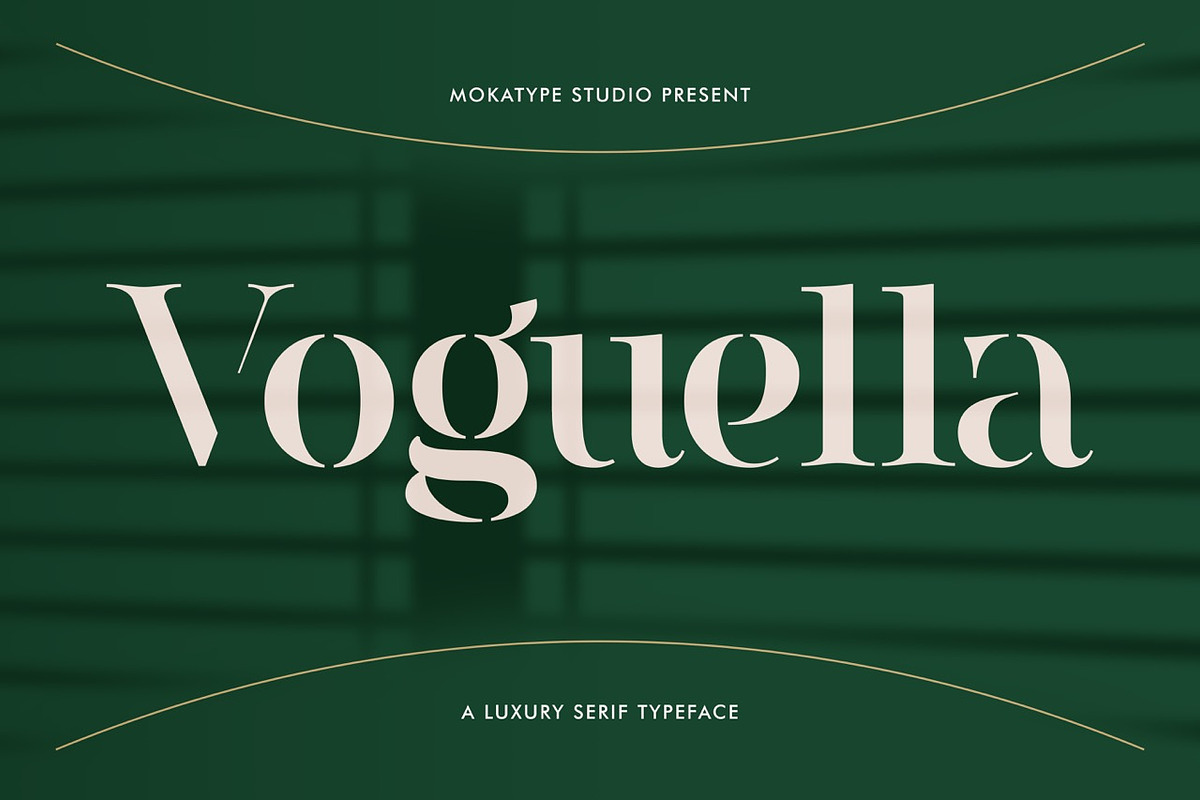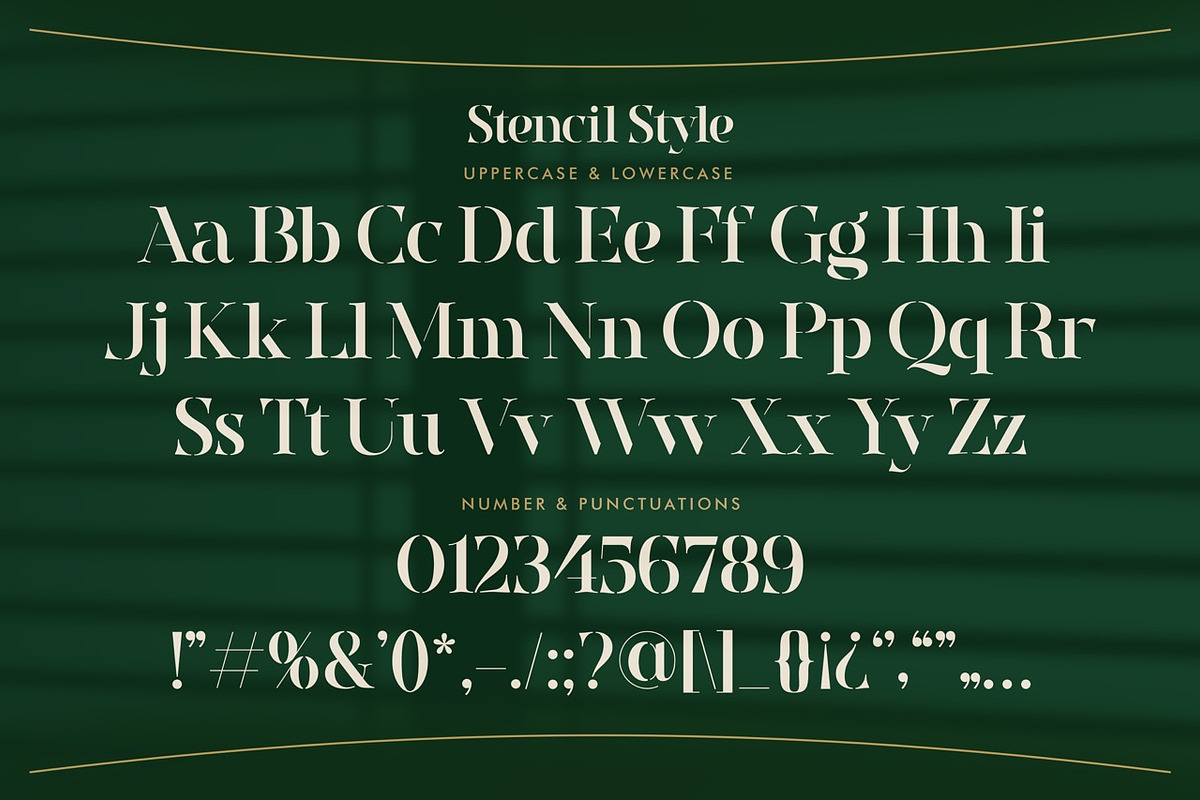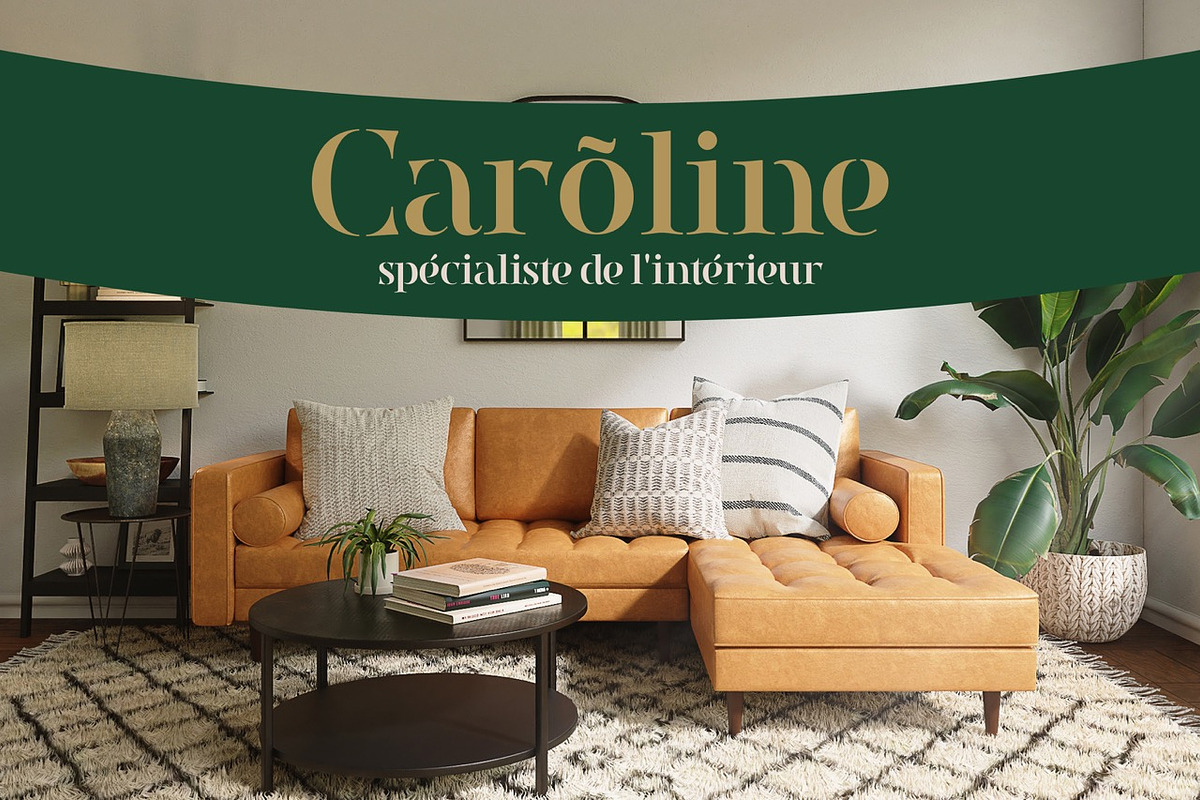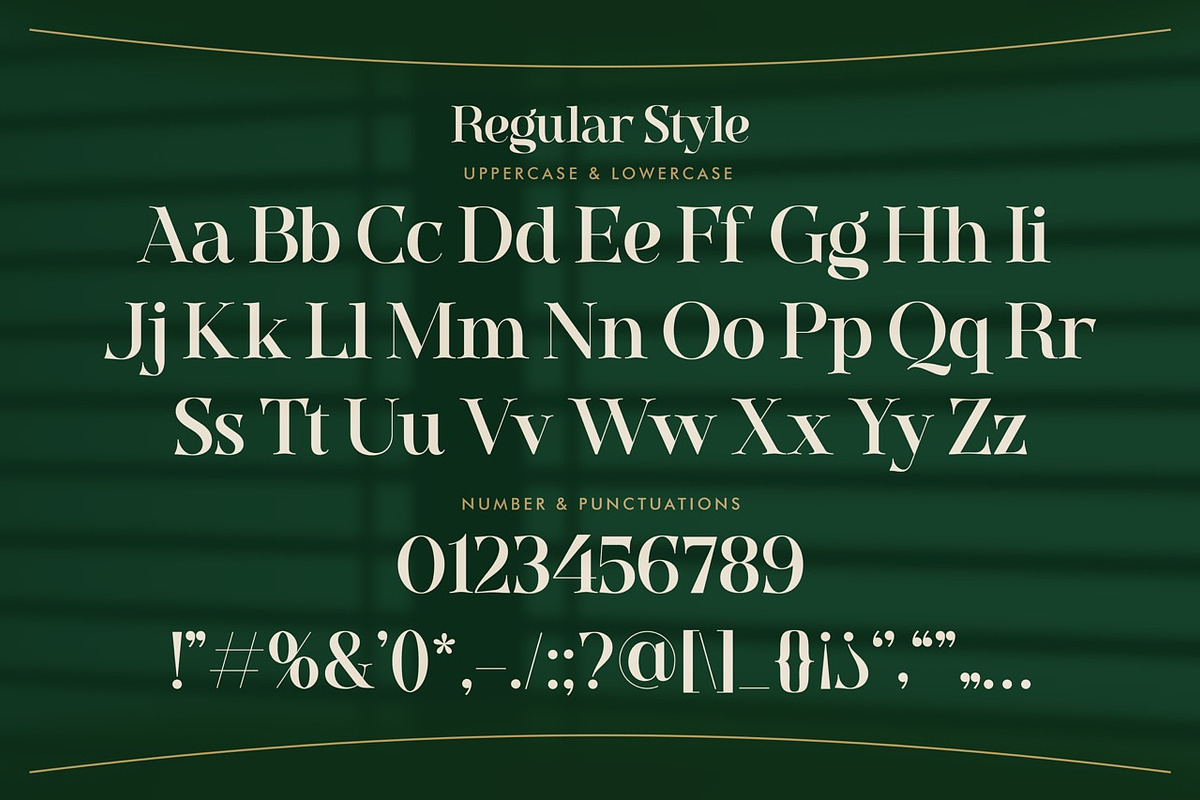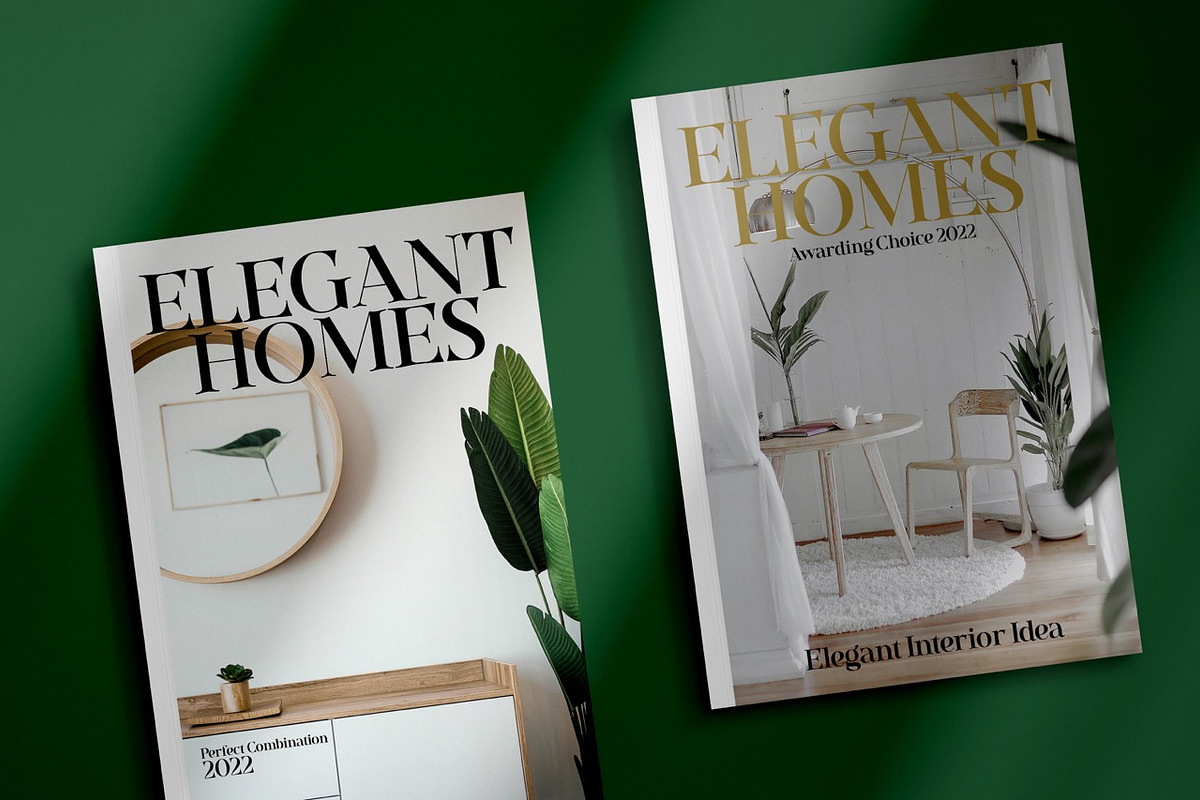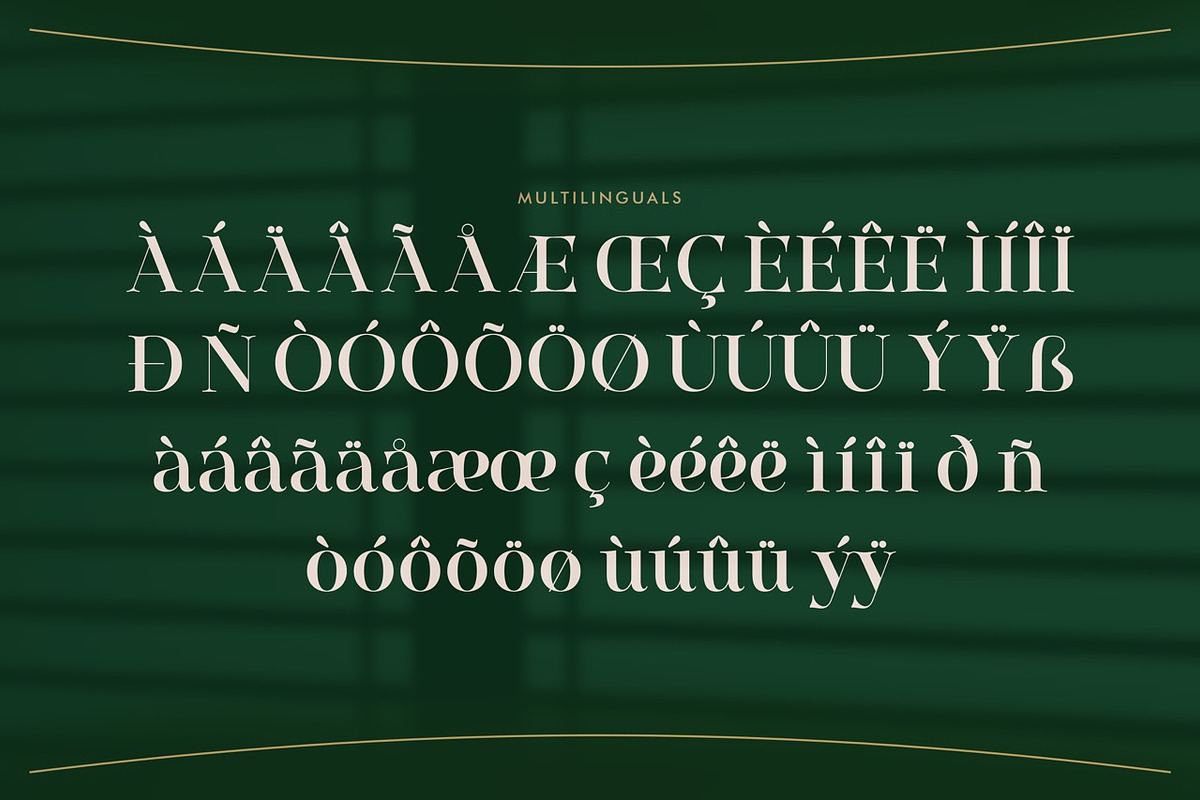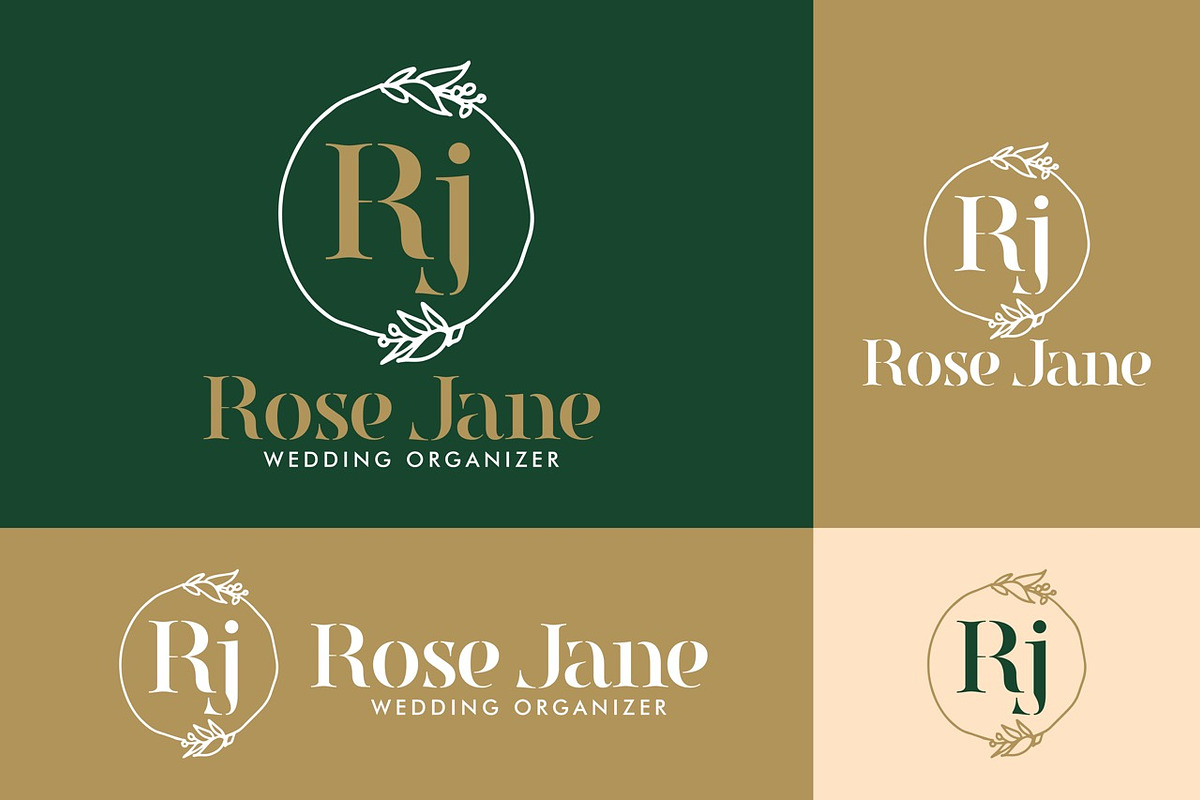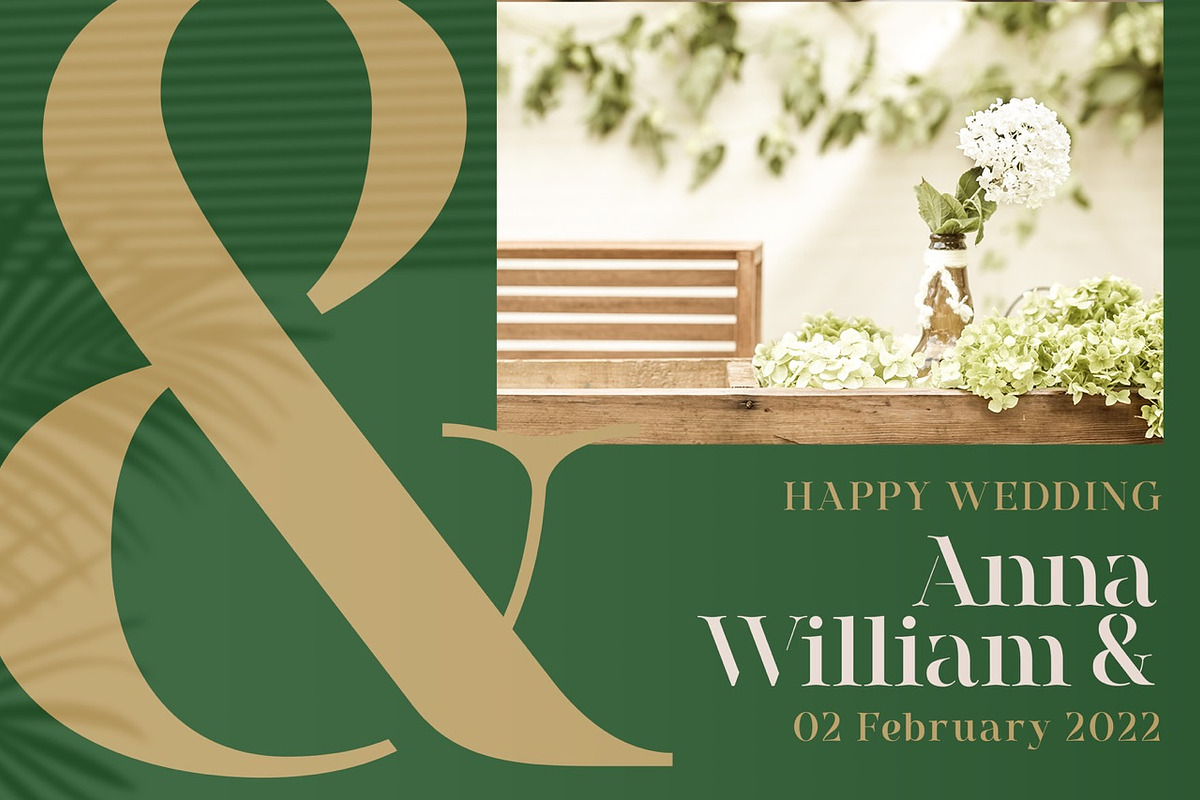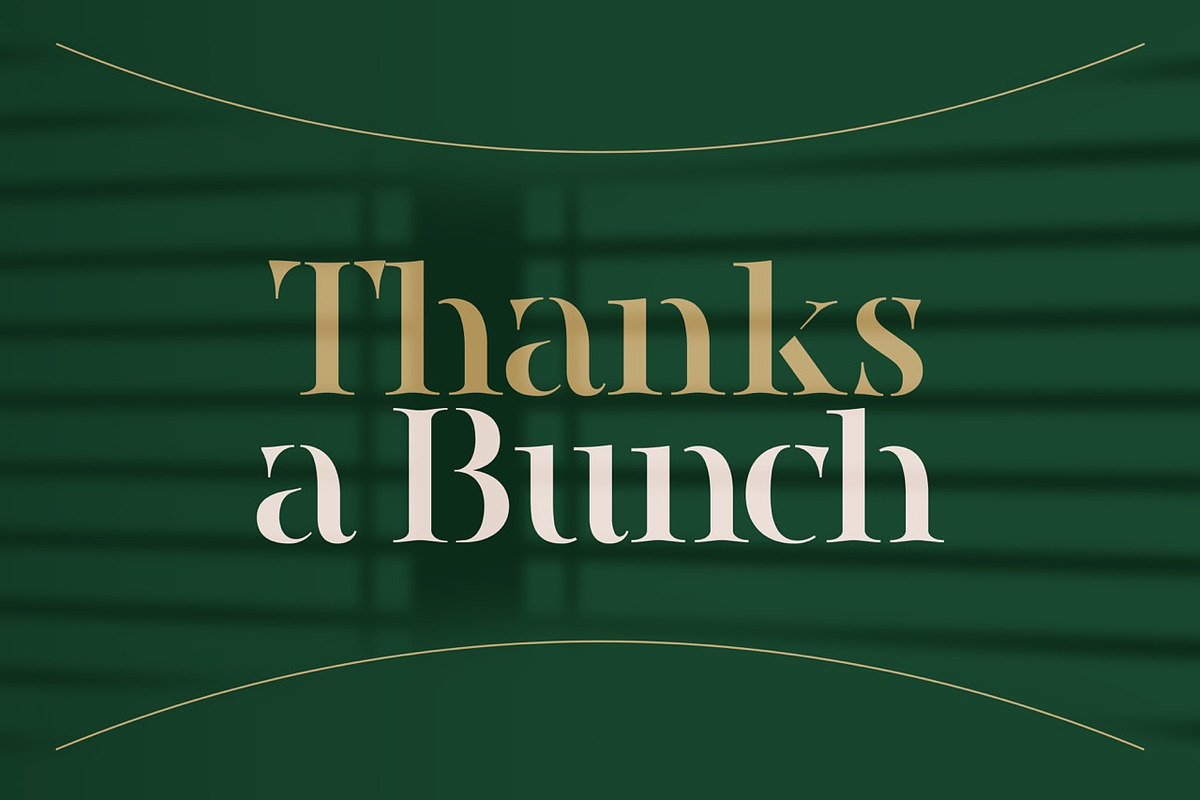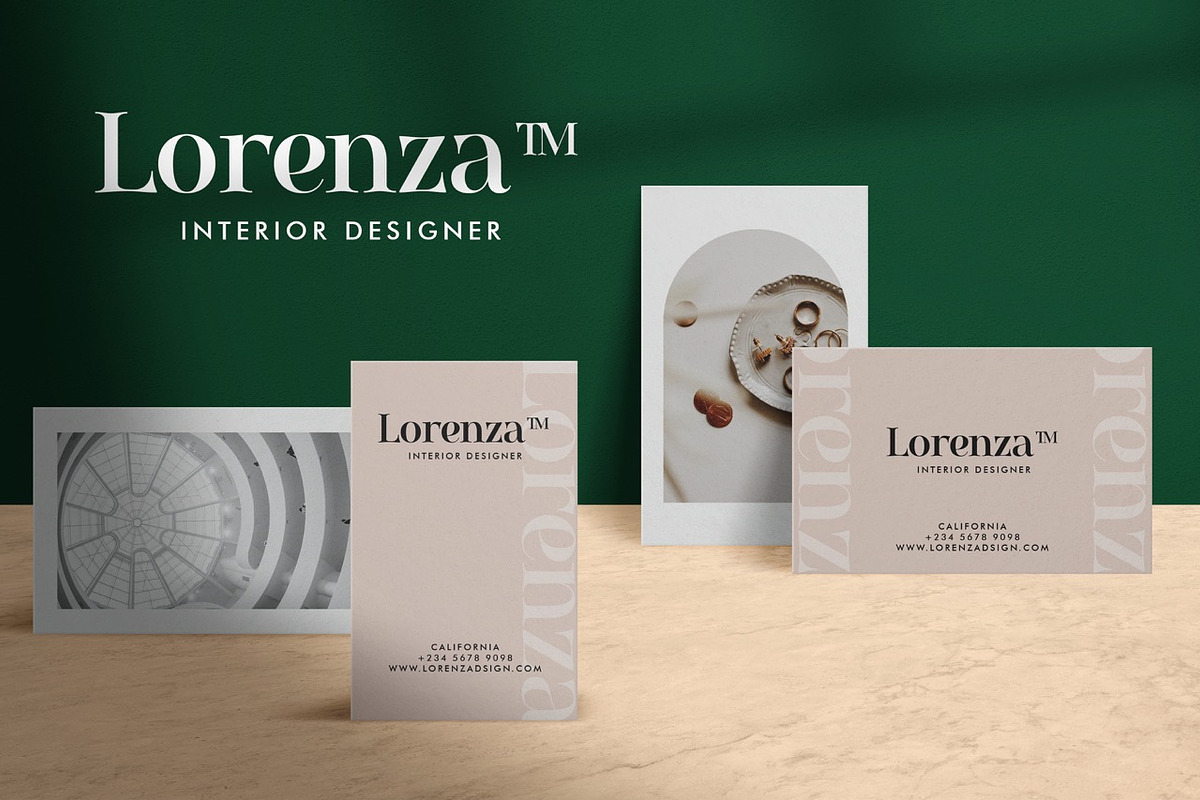
Voguella - Luxury Serif
Hello Introducing, Voguella - Luxurious Serif Display is elegant, inspired by the famous Elegant logo, and perfect for the purposes of designing templates, brochures, videos, advertising branding, logos, and more. Perfect for adding a unique twist to word-mark logos, monograms, or pull quotes.